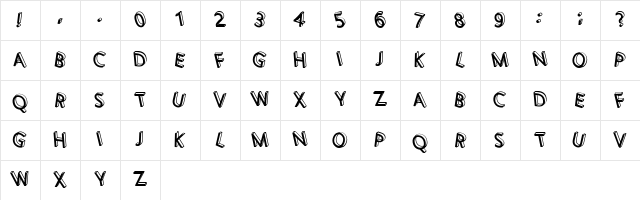
3D Letters Shadow Inverted Regular
Design Context for 3D Letters Shadow Inverted Typeface
3D Letters Shadow Inverted is built around its visual character rather than neutral utility — its distinctive forms are designed to make an impression at display sizes.
Font Pairing: Pair with a clean neutral sans-serif for body copy to let 3D Letters Shadow Inverted's character lead without overwhelming the composition.
Pro Tip: Treat 3D Letters Shadow Inverted as the centrepiece of your typographic hierarchy. One strong heading set in a decorative face can carry an entire layout.